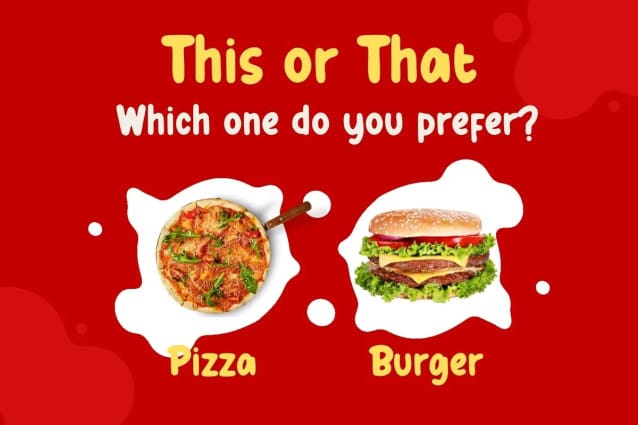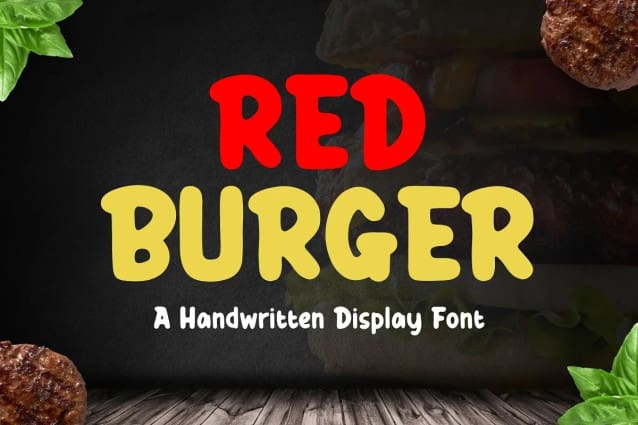
Red Burger Font
Red Burger Font – Handwritten Font, this font is perfect for branding, invitation, stationery, wedding designs, social media posts, advertisements, product packaging, product designs, label, photography, watermark, special events, and more.